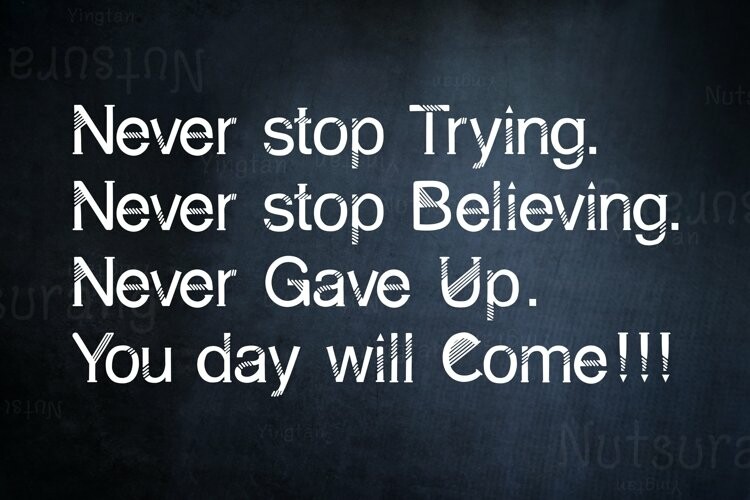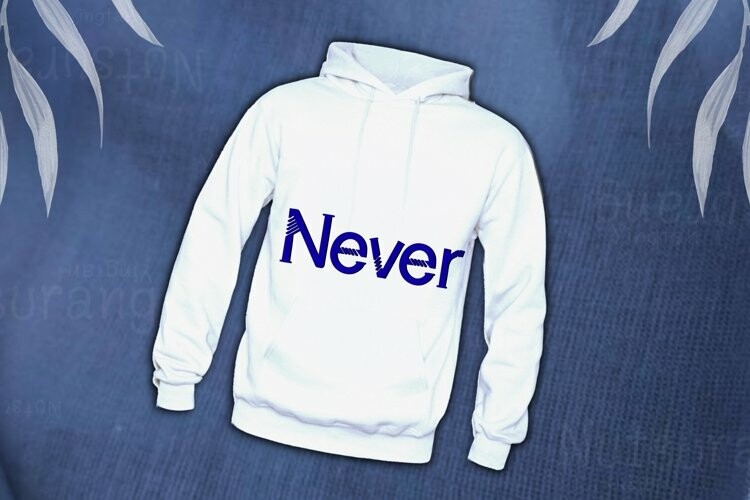
Mummies Fonts
Mummies FontsFun but professional, Mummies is a modern and innovative font that incorporates geometrical elements as part of its style. A balanced fusion of playful and professional, there are a ton of design projects this font will be perfect for.